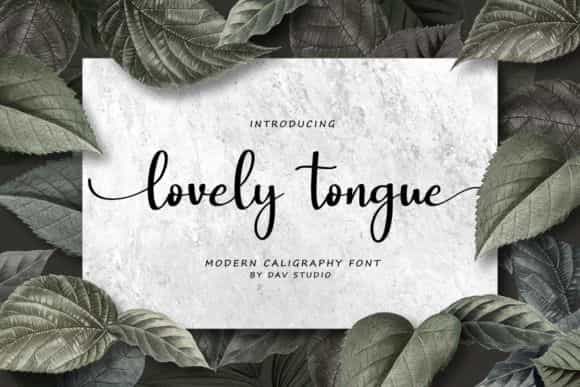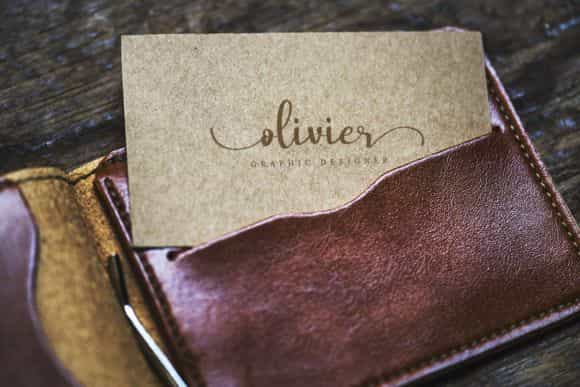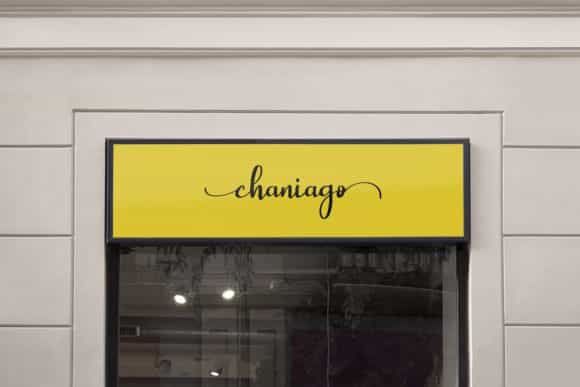
Lovely Tongue is a Hand Drawing Calligraphy Font. This font features a connected script style with characteristics and dynamic flow. Each individual letter has been meticulously designed to elevate the appearance of your designs.